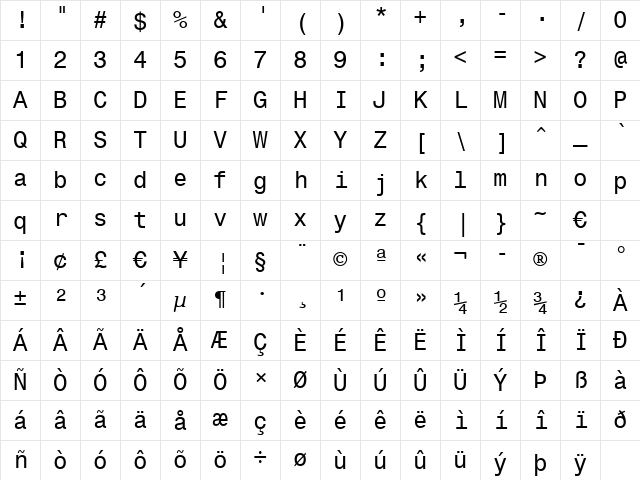
Monospac821 BT Roman
Design Context for Monospac821 BT
Monospac821 BT uses fixed-width spacing throughout, giving it the structured, systematic character associated with coding environments and technical documentation.
Pro Tip: Use Monospac821 BT with slightly increased line-height for extended reading - fixed-width spacing can feel dense in longer passages without extra breathing room.